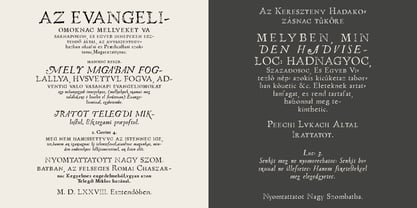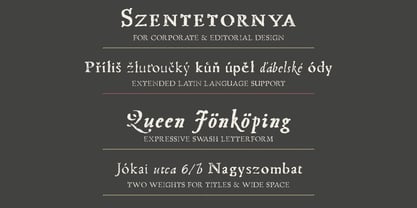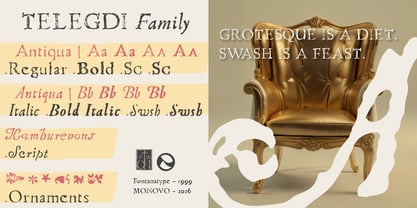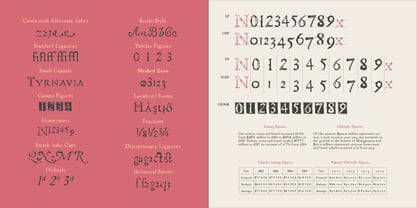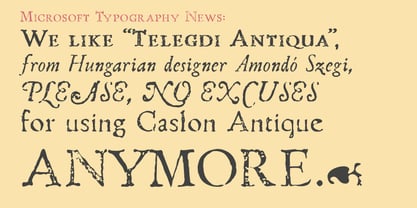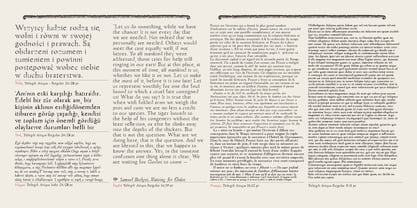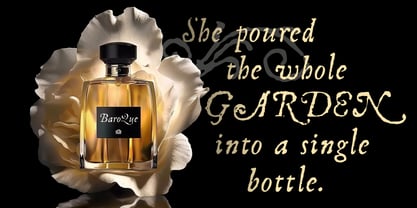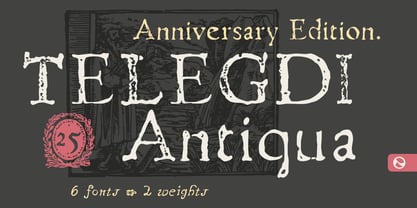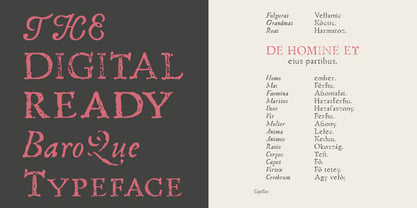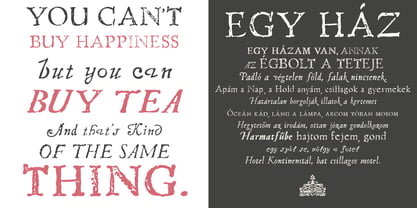
Telegdi Antiqua
Some typefaces explain themselves, but Telegdi Antiqua does not need to.
In 1577, Abbot Nicolaus Telegdi acquired the dormant press of the Vienna Jesuits — funded by the Emperor and the Esztergom Chapter — and installed it in his own house in Nagyszombat (Trnavia). Although he was already the bishop of Pécs in title, the Ottomans held the city, preventing him from going south. Instead, he went north and built.
The typefaces that came with that press were already worn, and Telegdi did not wait for new ones. He set his sermons in letters that had already lived a life — high contrast, sharp terminals, and a rhythm slightly irregular from use. That decision, to embrace imperfection as authenticity, became the soul of everything that followed.
Telegdi Antiqua draws directly from those letterforms. It works at 8pt in a footnote and at 120pt on a poster. It has appeared in book publishing, cultural institutions, and commercial work across two and a half decades without ever trying to be contemporary. That is precisely why it still is. Use it when the work needs weight without noise, history without costume, and character without apology.